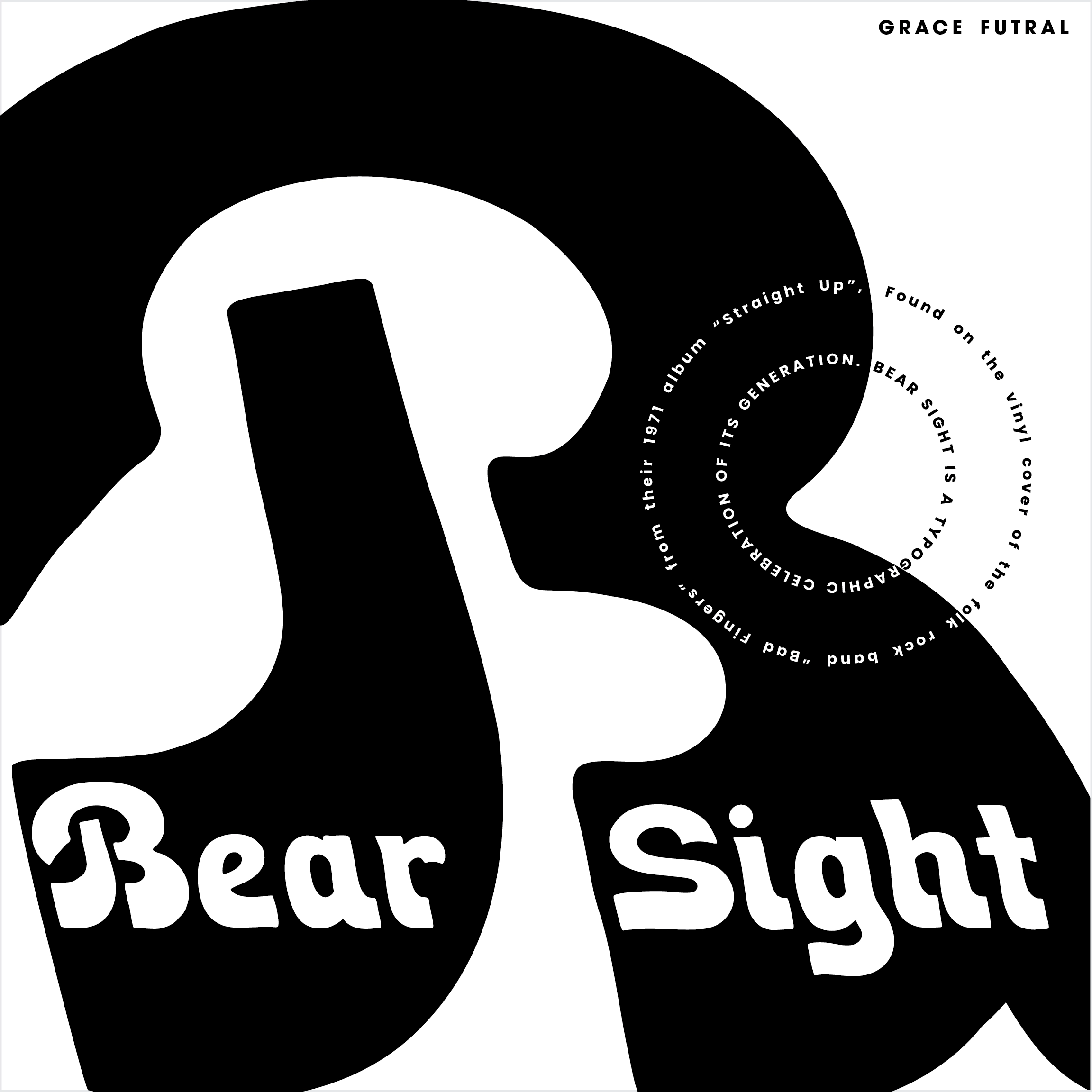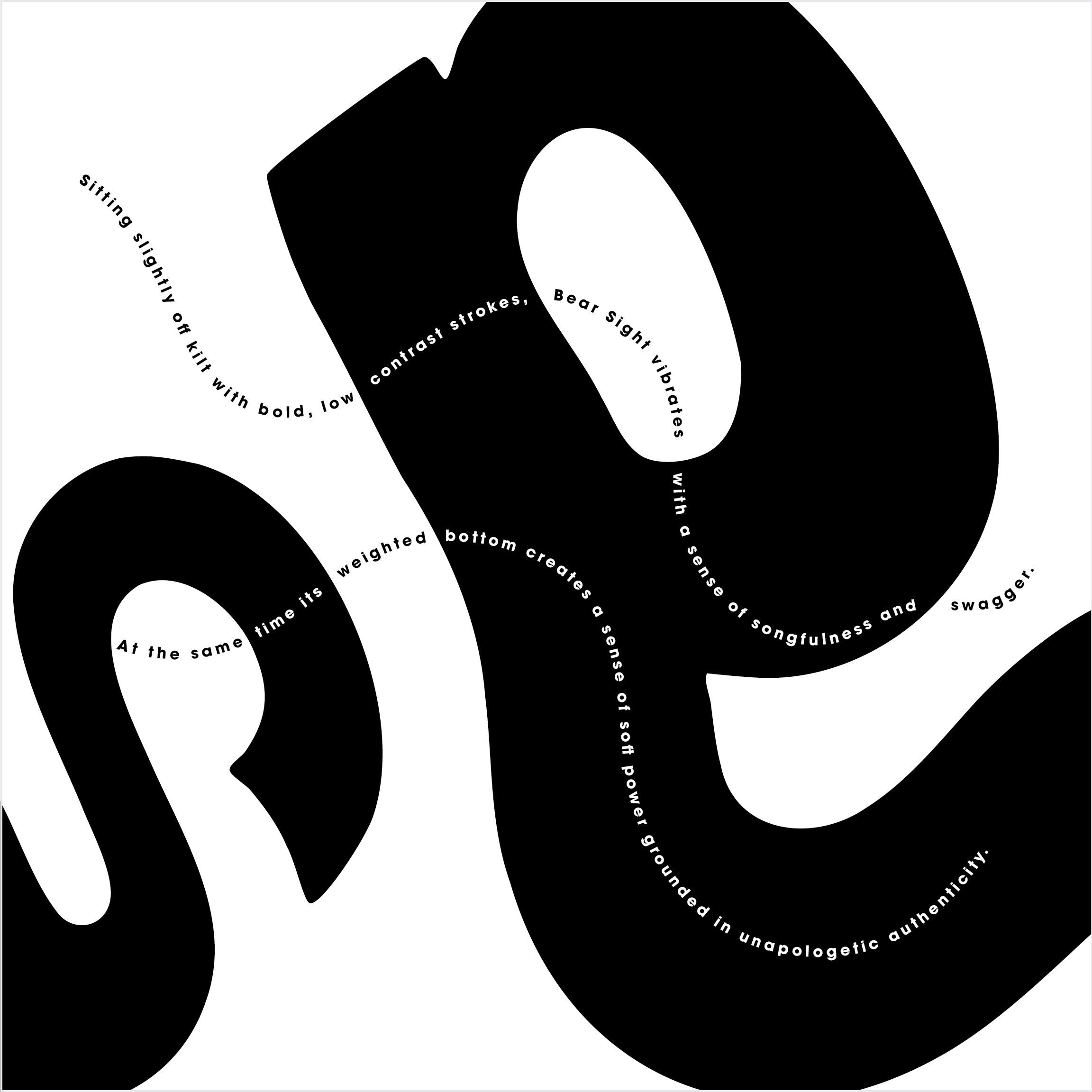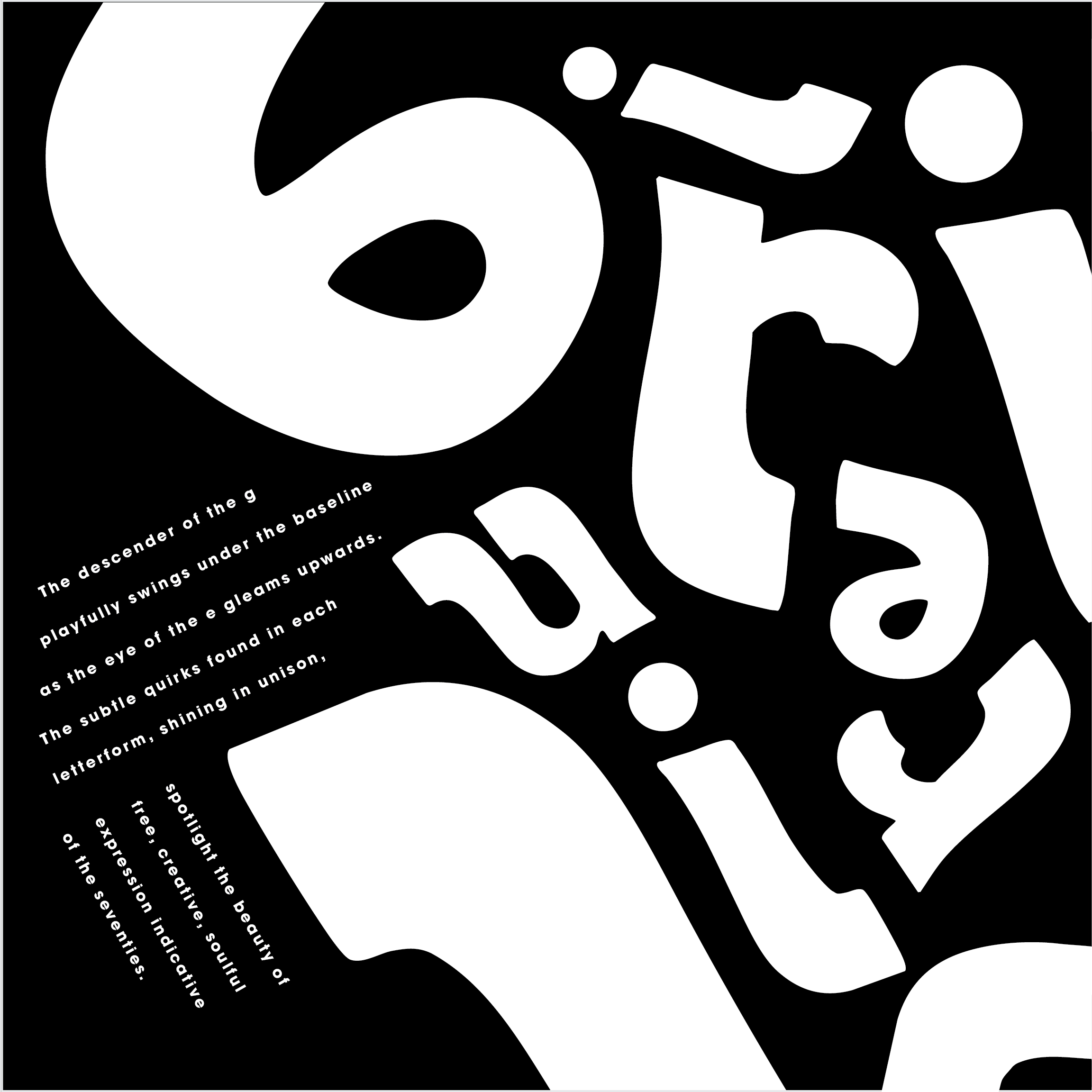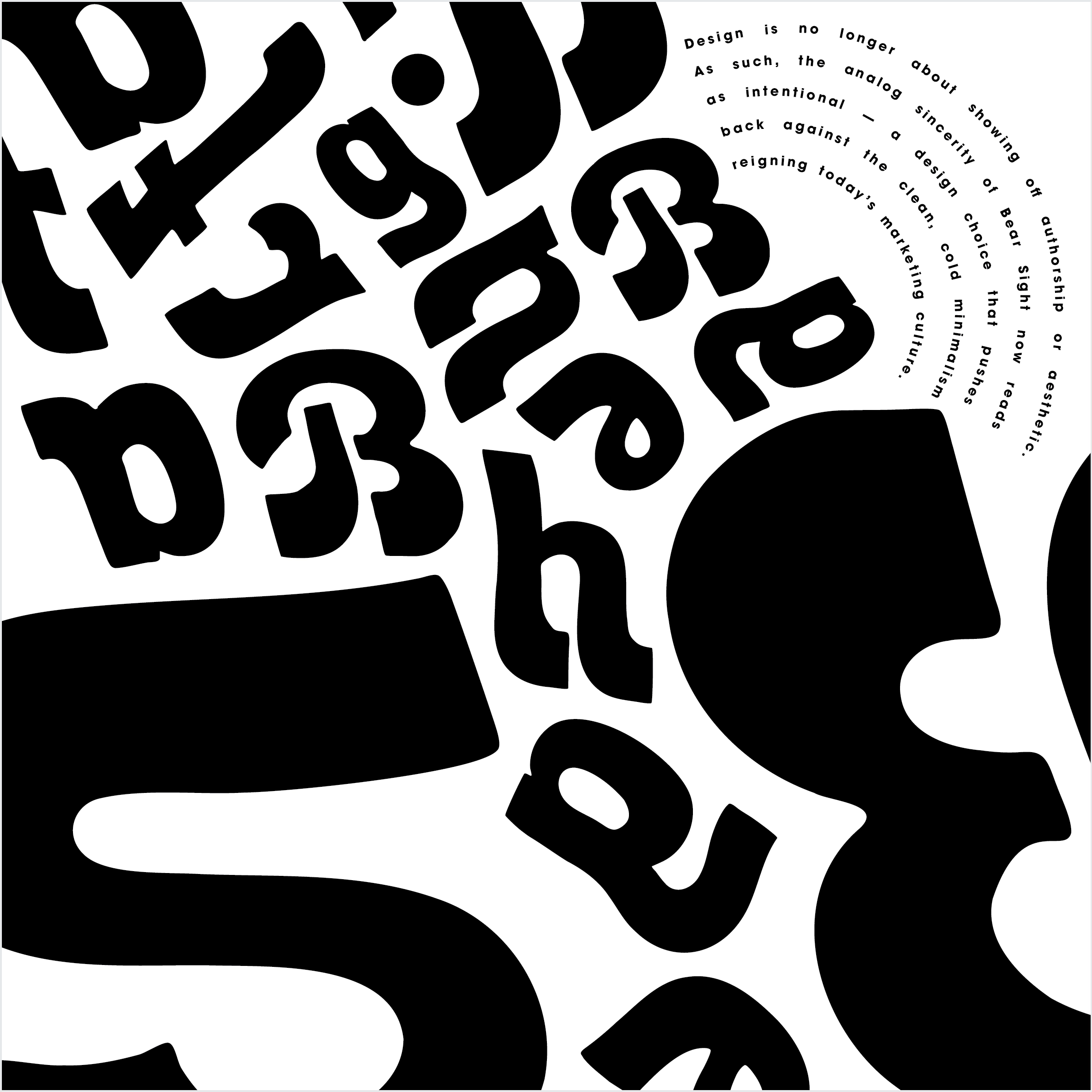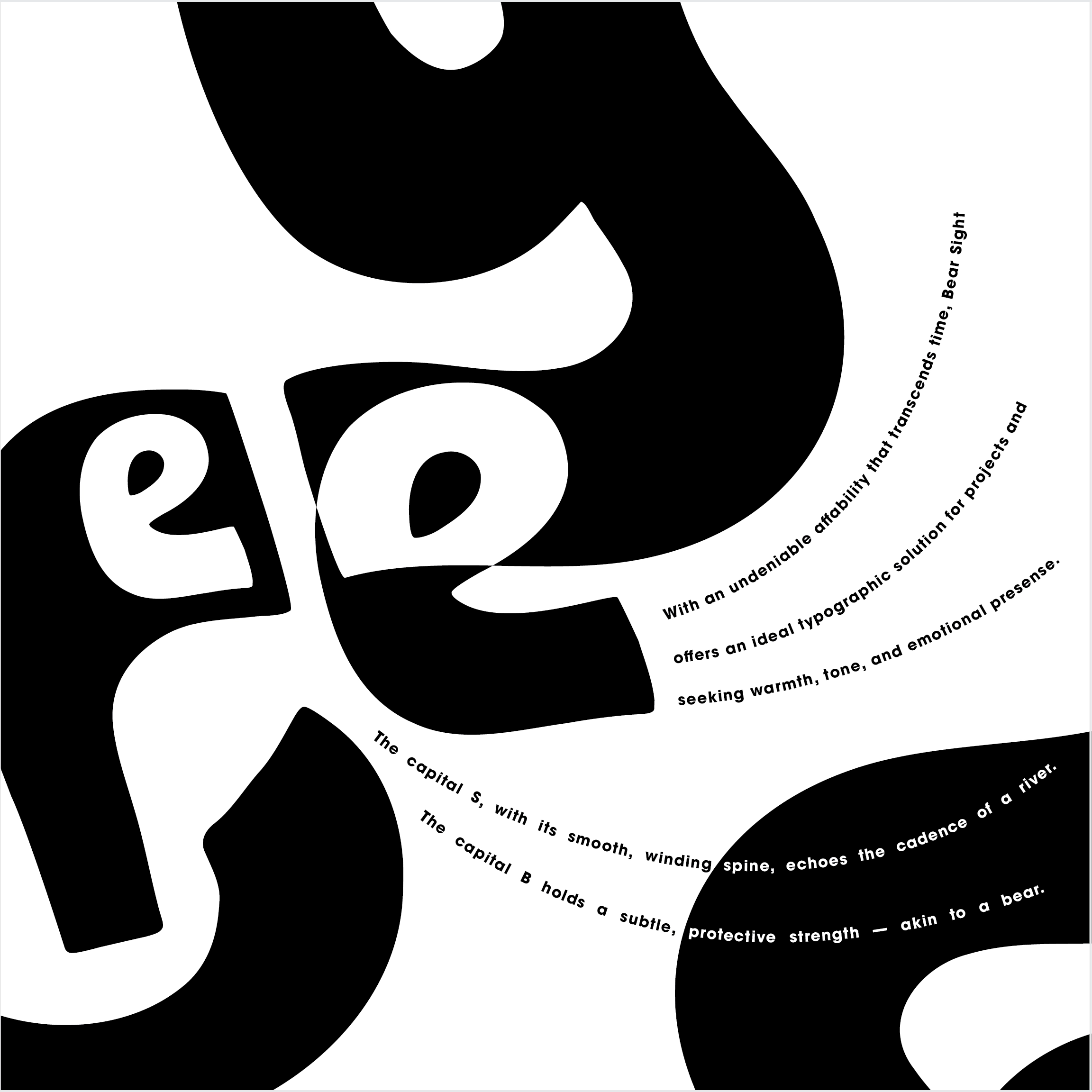
FONT CONTINUUM
As part of my typographic communication class at SCAD, I reinvented an unpublished font from the past. In a accordian layout, I portrayed the storyline of a 70s style typeface through time, depicting its nuances and dynamism of "Bearsight" in past, present and future contexts.
The original typeface on the album cover of folk-rock band "Badfingers" released in 1972.
This project also demonstrates my ability to use the grid systems of subtext as expression.
Full-layout of project. Each panel is 8x8 inches.